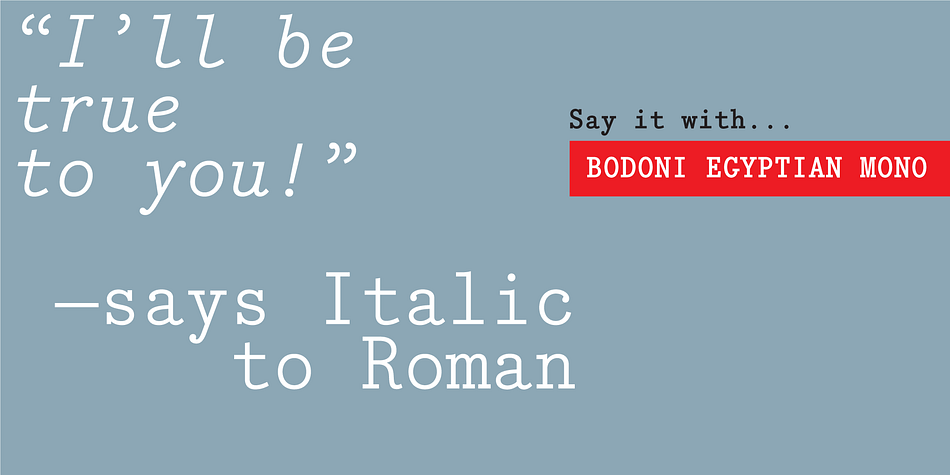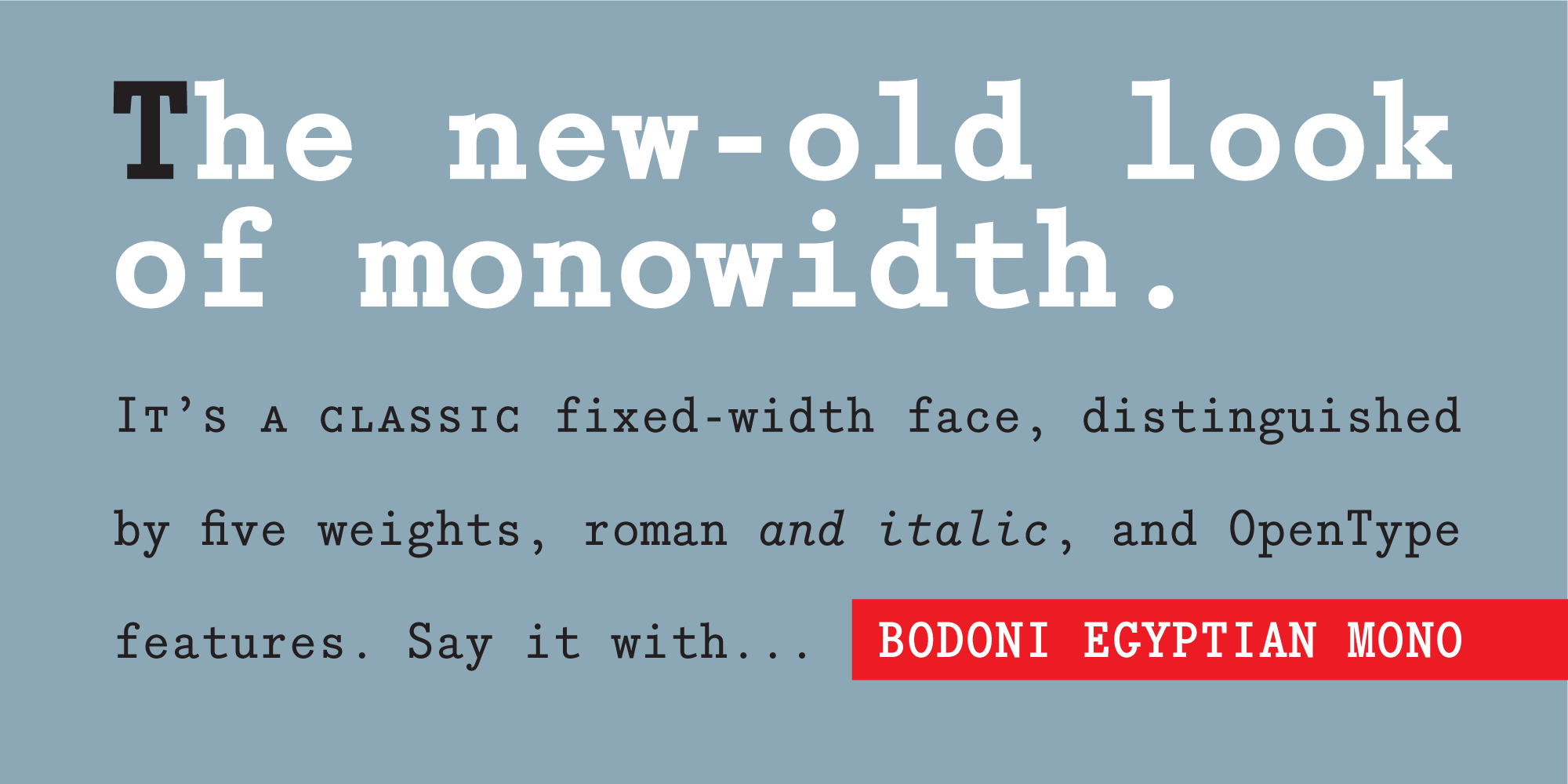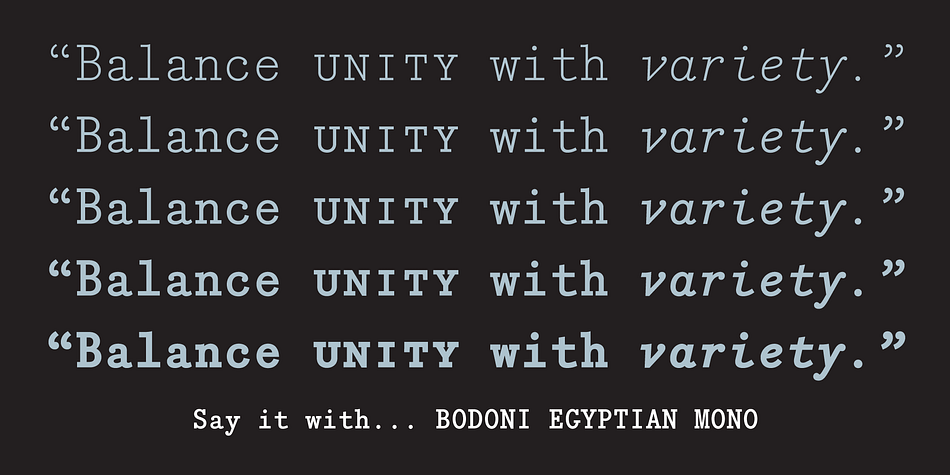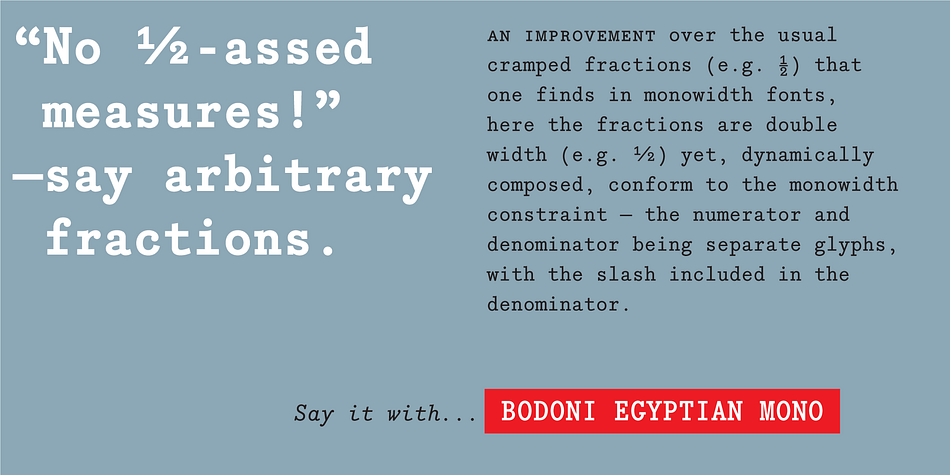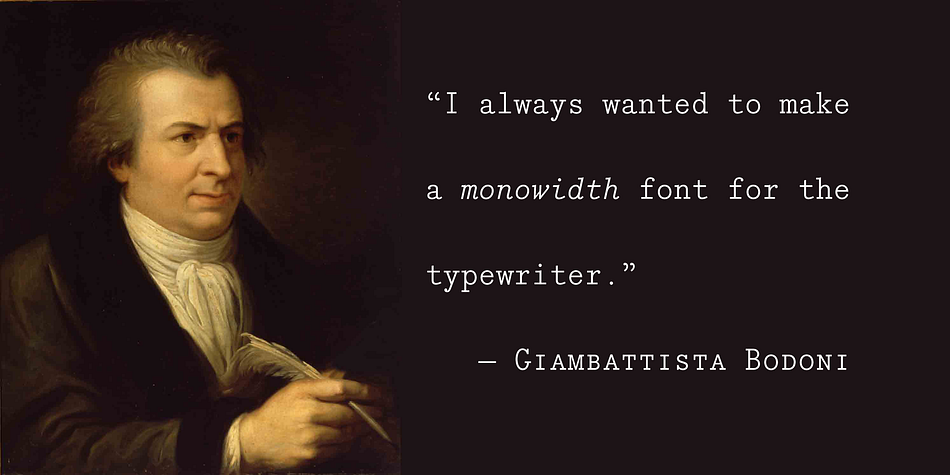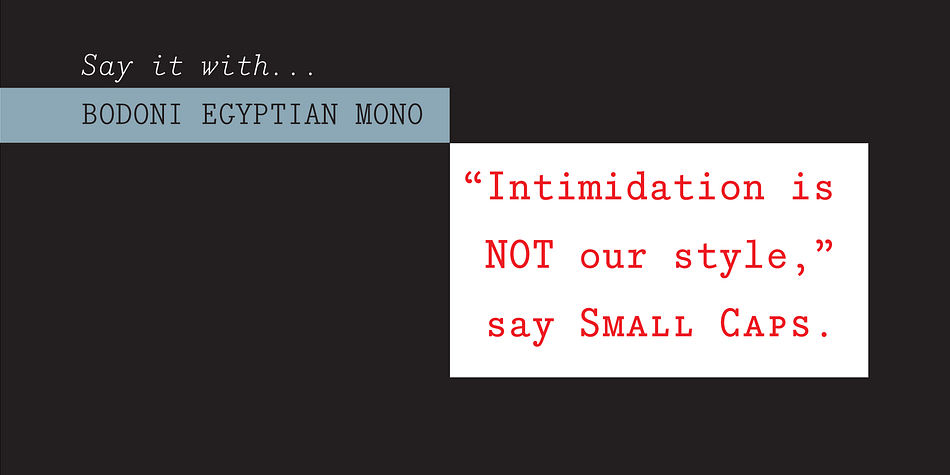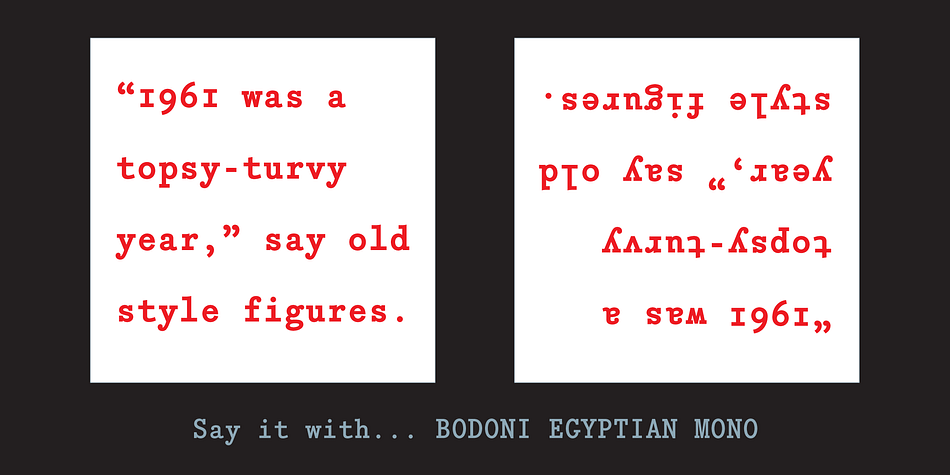
Designed by Nick Shinn, Bodoni Egyptian Mono is a slab serif and typewriter font family. This typeface has ten styles and was published by Shinntype.
Monospaced typefaces invariably defy irregular spacing, to the extent of hugely distorted letter forms. Here however, there is a more dignified effect, retaining much of the classic letter proportions. There is a copious range of “expert” features—small caps, superior and inferior figures, alternate old style figures—rendered throughout a five-weight family in both roman and italic. Why, it’s almost like a real typeface!